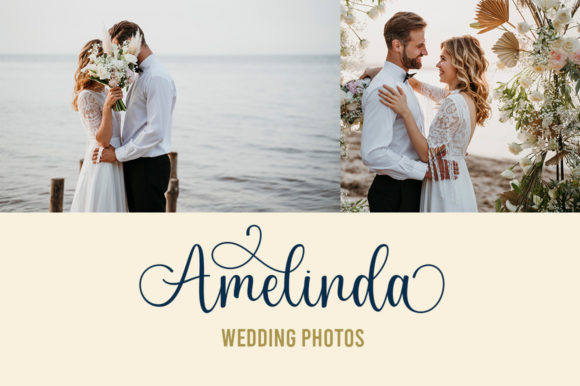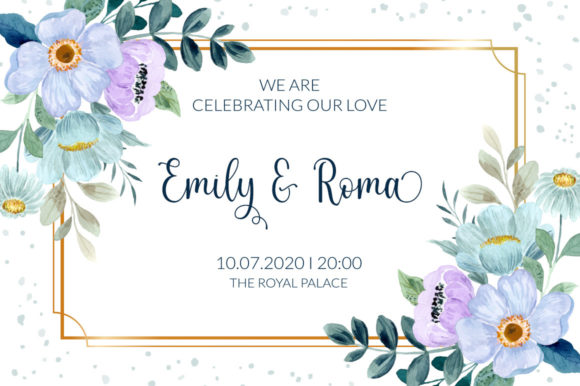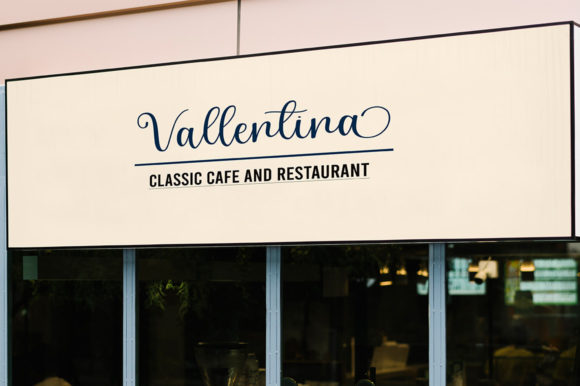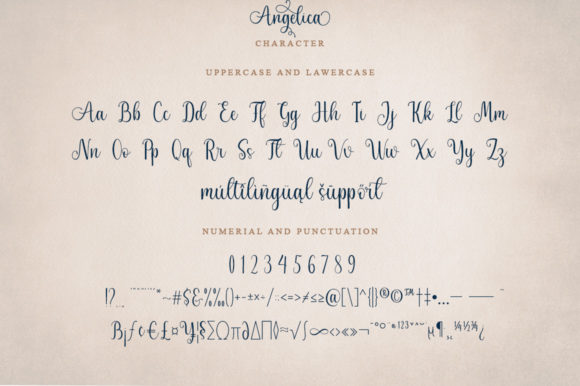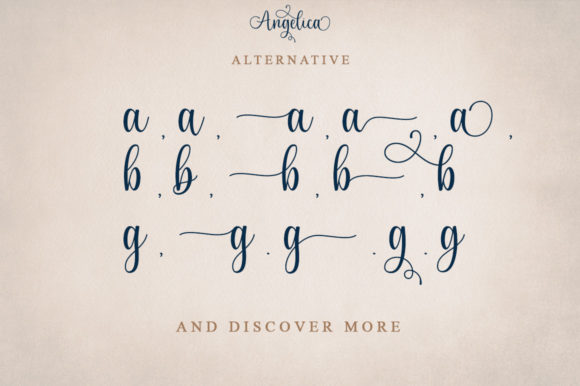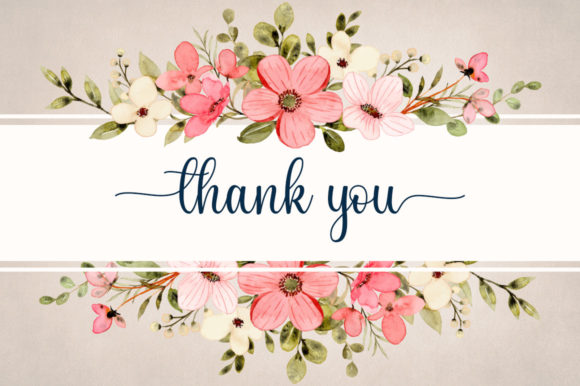
Introducing Angelica Font: Elevate Your Creativity with this Stunning Handwritten Font
Are you a designer, crafter, or creative enthusiast looking for a unique and versatile font to take your projects to the next level? Look no further than Angelica Font, a distinct handwritten font carefully designed to bring your creative ideas to life. With its elegant and flowing script, Angelica Font is poised to become a top choice for anyone seeking a high-quality, PUA-encoded font that offers unparalleled flexibility and style.
What Makes Angelica Font So Special?
Angelica Font is more than just a pretty face – it’s a meticulously crafted font that offers a range of features and benefits that set it apart from other fonts on the market. Here are just a few reasons why Angelica Font should be on your radar:
- PUA Encoding: Angelica Font is PUA (Private Use Area) encoded, which means you can access all of the glyphs and swashes with ease. This feature allows you to unlock the full potential of the font, giving you the freedom to create unique and intricate designs that showcase your creativity.
- Handwritten Elegance: Angelica Font boasts a beautiful, handwritten script that’s perfect for a wide range of projects, from wedding invitations and greeting cards to branding and packaging. Its elegant, flowing lines add a touch of sophistication and whimsy to any design.
- Versatility: Whether you’re working on a digital project or a print design, Angelica Font adapts seamlessly to any medium. Its clear, legible lines ensure that your message gets across, while its decorative elements add a touch of flair.
How Angelica Font Can Elevate Your Designs
So, how can Angelica Font help take your designs to the next level? Here are just a few examples:
- Branding and Packaging: Use Angelica Font to create eye-catching logos, labels, and packaging that reflect your brand’s personality and style. Its unique, handwritten script adds a touch of warmth and approachability to any brand.
- Wedding and Event Design: Create stunning wedding invitations, save-the-dates, and event materials with Angelica Font. Its elegant, flowing lines evoke a sense of romance and sophistication, making it perfect for special occasions.
- Digital Design: From social media graphics to website headers, Angelica Font can add a touch of elegance and whimsy to any digital design. Its clear, legible lines ensure that your message gets across, while its decorative elements add visual interest.
Tips for Getting the Most Out of Angelica Font
To help you get started with Angelica Font, here are a few tips and tricks:
- Experiment with Swashes: Take advantage of Angelica Font’s PUA encoding to access a range of swashes and glyphs. These decorative elements can add a touch of flair to any design, from simple borders to intricate illustrations.
- Mix and Match: Don’t be afraid to combine Angelica Font with other fonts to create a unique look. Its elegant script pairs well with bold, modern fonts or delicate, handwritten scripts.
- Pay Attention to Kerning: As with any font, kerning is essential to creating a polished, professional look. Take the time to adjust the kerning and tracking to ensure that your text looks its best.
In conclusion, Angelica Font is a stunning handwritten font that’s poised to become a top choice for designers, crafters, and creative enthusiasts. With its elegant, flowing script and PUA encoding, this font offers unparalleled flexibility and style. Whether you’re working on a branding project, wedding design, or digital graphic, Angelica Font has the potential to elevate your creativity and bring your ideas to life. So why wait? Give Angelica Font a try today and discover a world of creative possibilities!